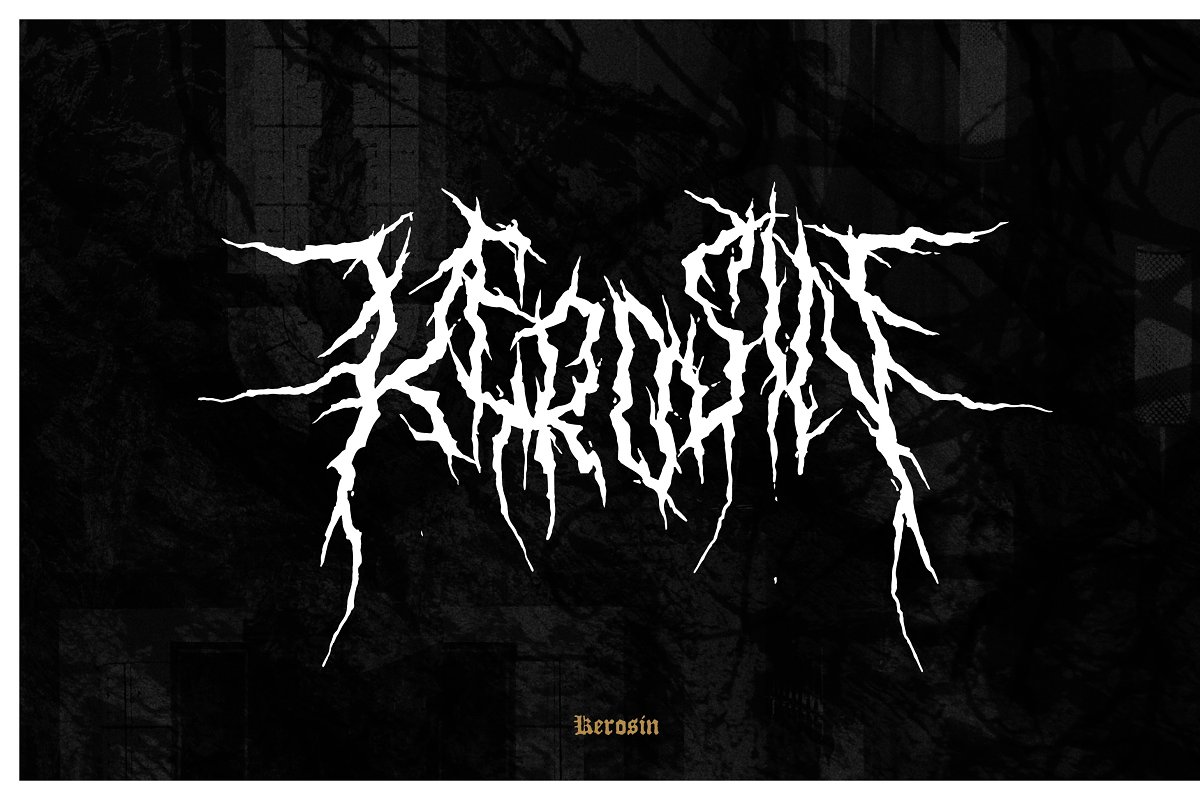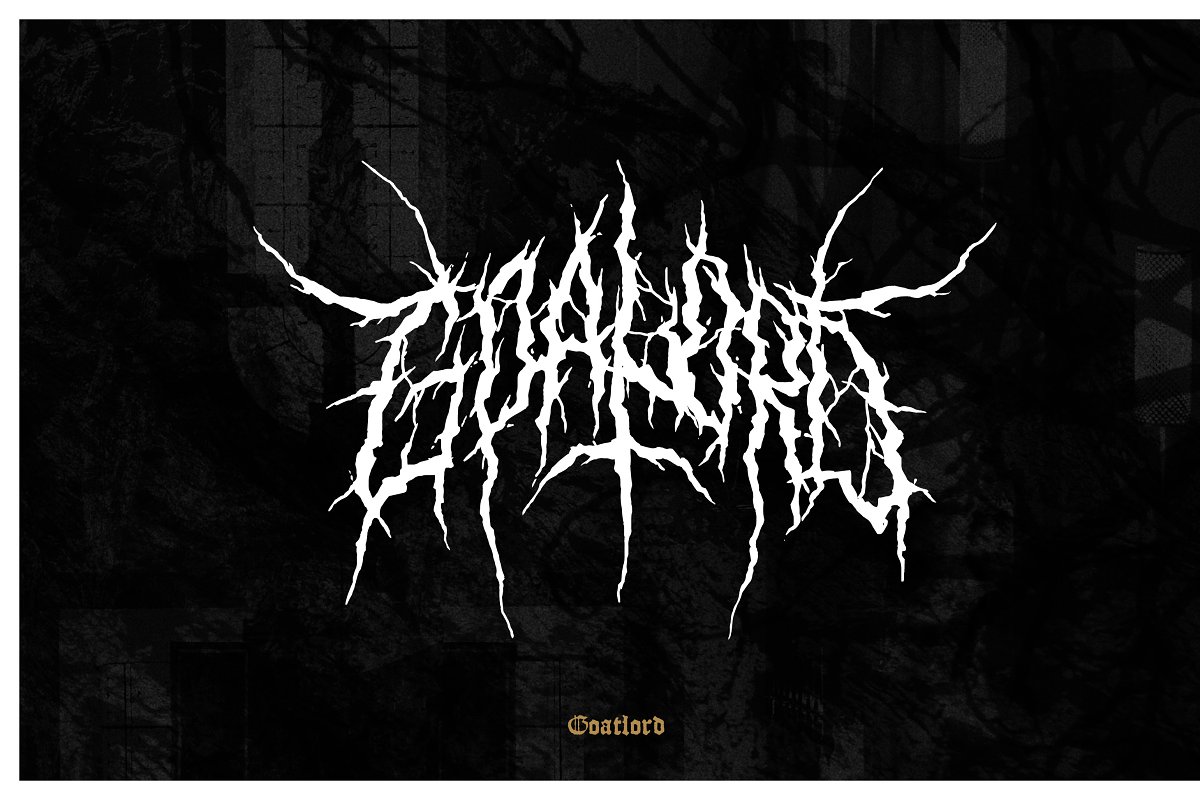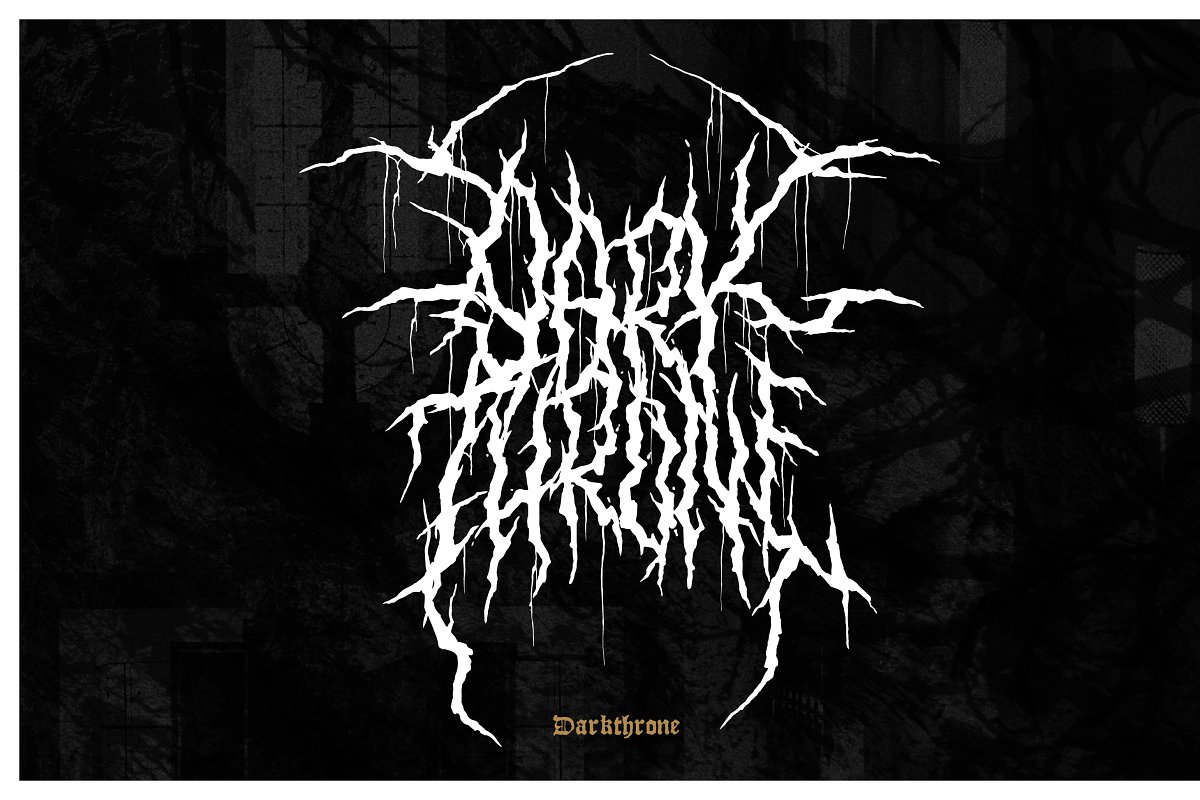
About the XXII Morduk Font
The XXII Morduk – Font is a cool alternative for you to easy create a logo for your band or whatever, It comes with a basic characterset and a little bunch of symbols and signs often used in the extreme music sector – classical stuff from Death- and Blackmetal like pentagrams drips, roots, spikes and others, How to easily create blackmetal logo from font:https://www